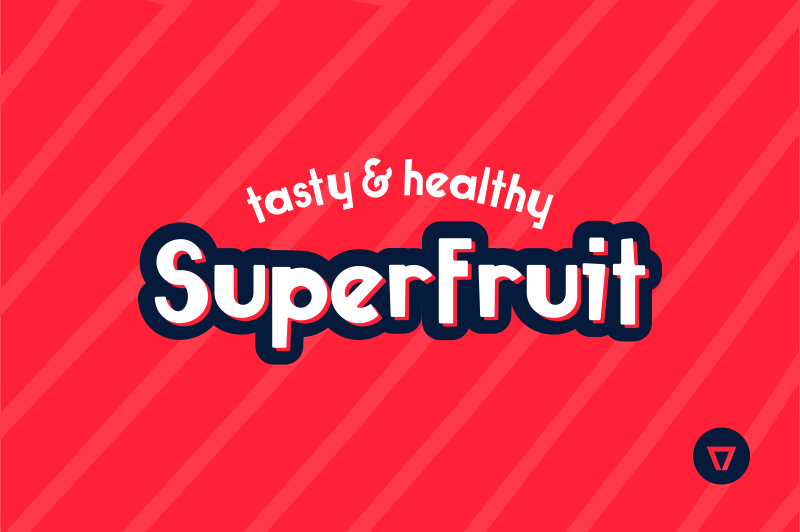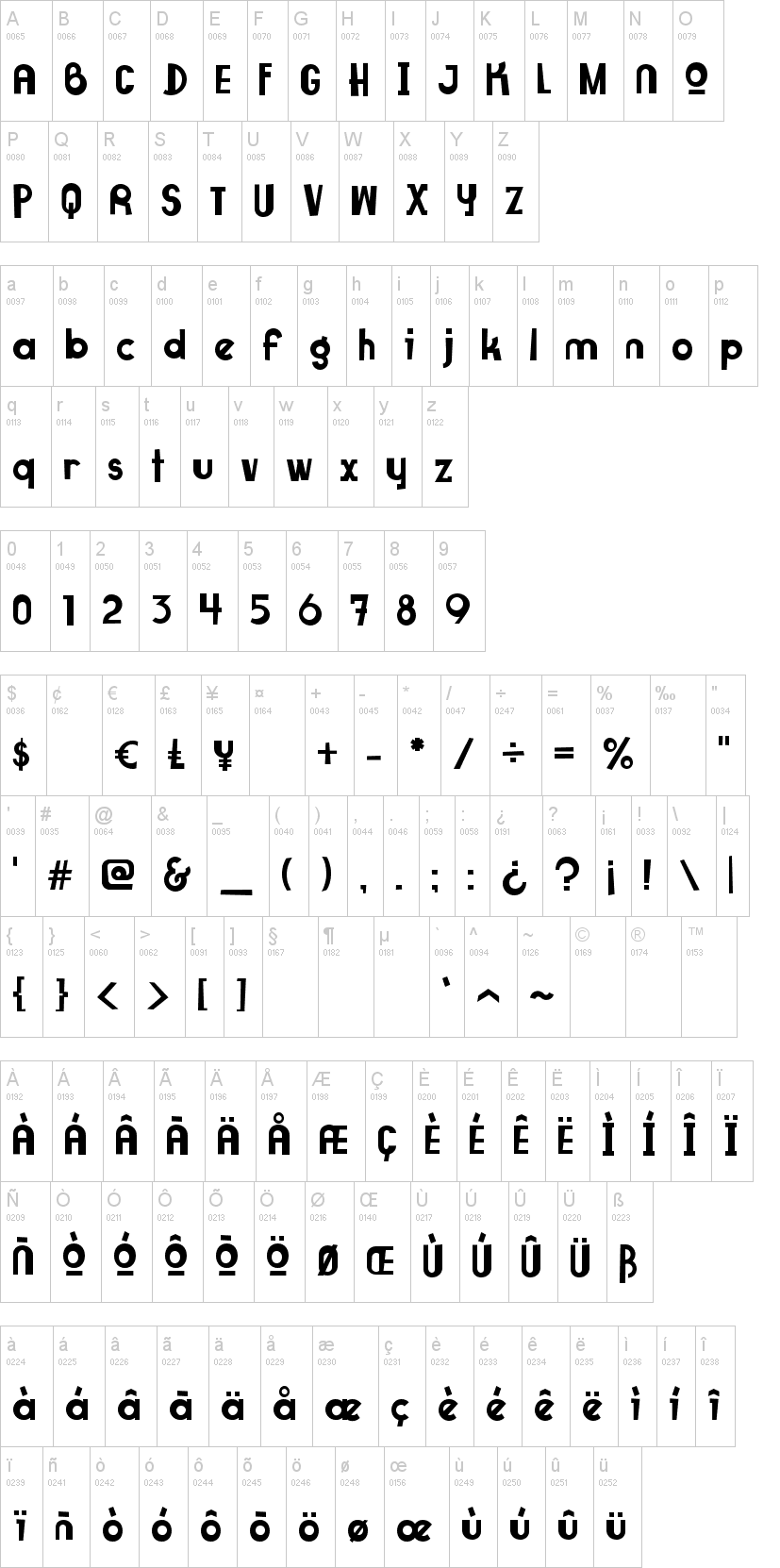
Note of the authorSUPERFRUIT is a tasty and healthy display font, with lots of fun and attitude. Perfect for posters, flyers, invitations, logos and more.